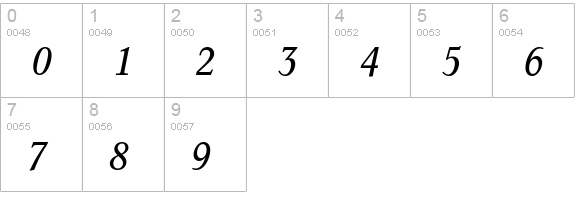
Concorde Nova Italic Font Details
Concorde Nova Italic is a distinctive, italic variant in the Concorde typeface family \xE2\x80\x94 well suited to design and typography projects.
Concorde Nova Italic font exudes elegance and sophistication with its sleek and modern design. The slanted italic style adds a touch of dynamism and flair to any project, making it perfect for creating a sense of movement and energy in your designs. The crisp, clean lines and balanced proportions of this font make it highly versatile, suitable for a wide range of design applications. What's even better is that Concorde Nova Italic font is available for free download at FontsMarket.com. This means you can easily access this stylish and professional font without any cost, making it a valuable addition to your font collection. Whether you're working on a branding project, graphic design, or any other creative endeavor, Concorde Nova Italic font is sure to elevate your work with its timeless appeal and contemporary aesthetic. Download it today and bring a touch of sophistication to your designs!